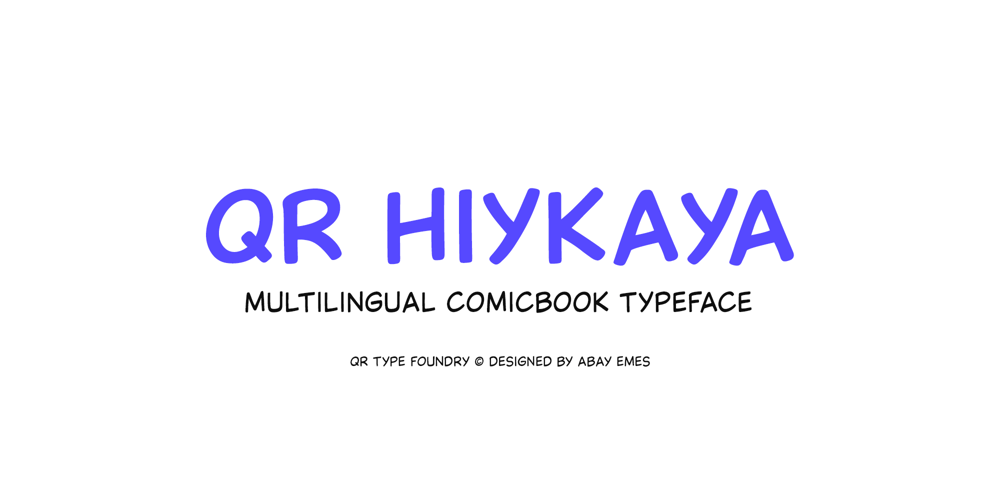
QR Hiykaya
QR Hiykaya font
QR Hiykaya Font Family was designed by Abay Emes and published by QR Type. QR Hiykaya contains 6 styles and family package options. All uppercase typeface for comic book lettering. Designed by Abay Emes. Supports extended Cyrillic and Latin characters. Has a stylistic set alternate L and D for Cyrillic and a stylistic set for languages with dotless i and i with dot (like Turkish). “Hiykäyä” translates from Qazaq as “Story”.